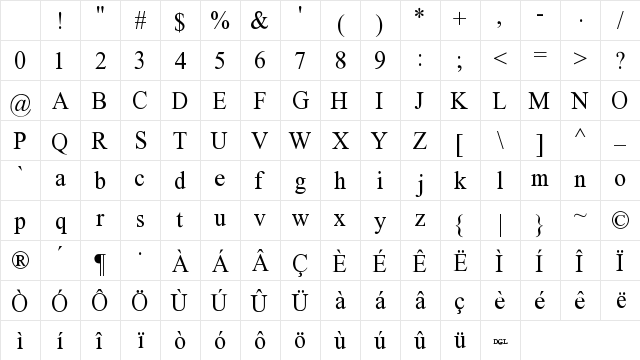
Complete Temps Nouveau - DGL R(20 glyph index. Displaying only characters natively supported by Temps Nouveau - DGL R(20 font.
Temps Nouveau - DGL is a composed and adaptable typeface that performs quietly and consistently across a wide range of design contexts.